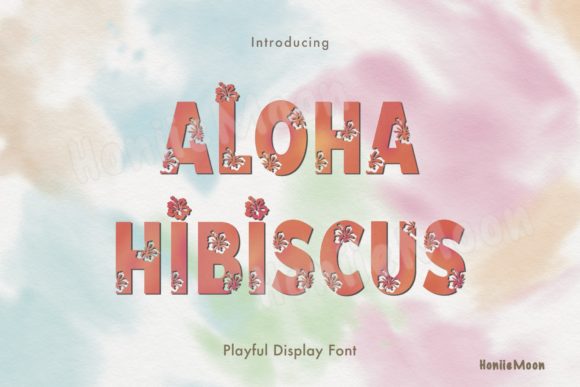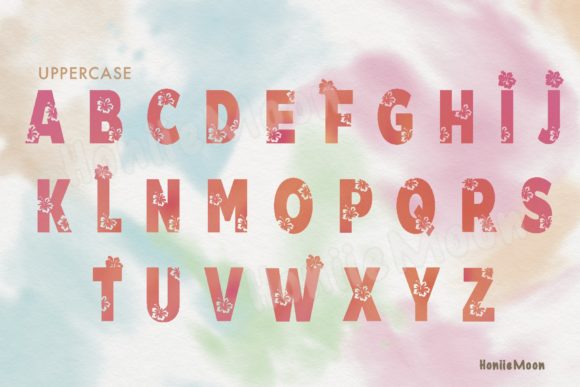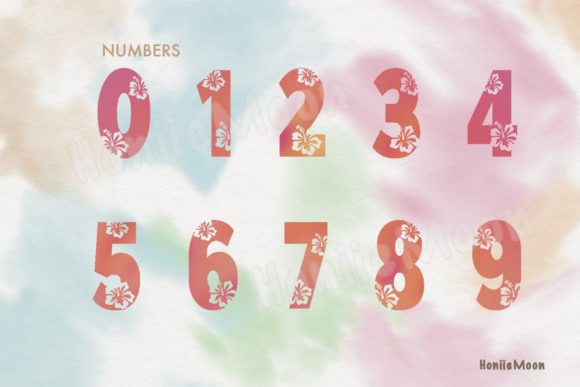
Aloha Hibiscus Font: A Playful Decorative Font for Social Media Design
About the Aloha Hibiscus Font
Elevate your designs with Aloha Hibiscus Font, a font that combines sophistication with readability. Aloha Hibiscus is a cool and fun decorative font. It is suitable for logotype, headline font, in corporate identity, brand identity, apparel industry, poster, music, movie, game, magazine, book, comic, cartoon, YouTube, Instagram, website, or any of your creative design projects.
Aloha Hibiscus Font Usage Examples
Aloha Hibiscus Font Example